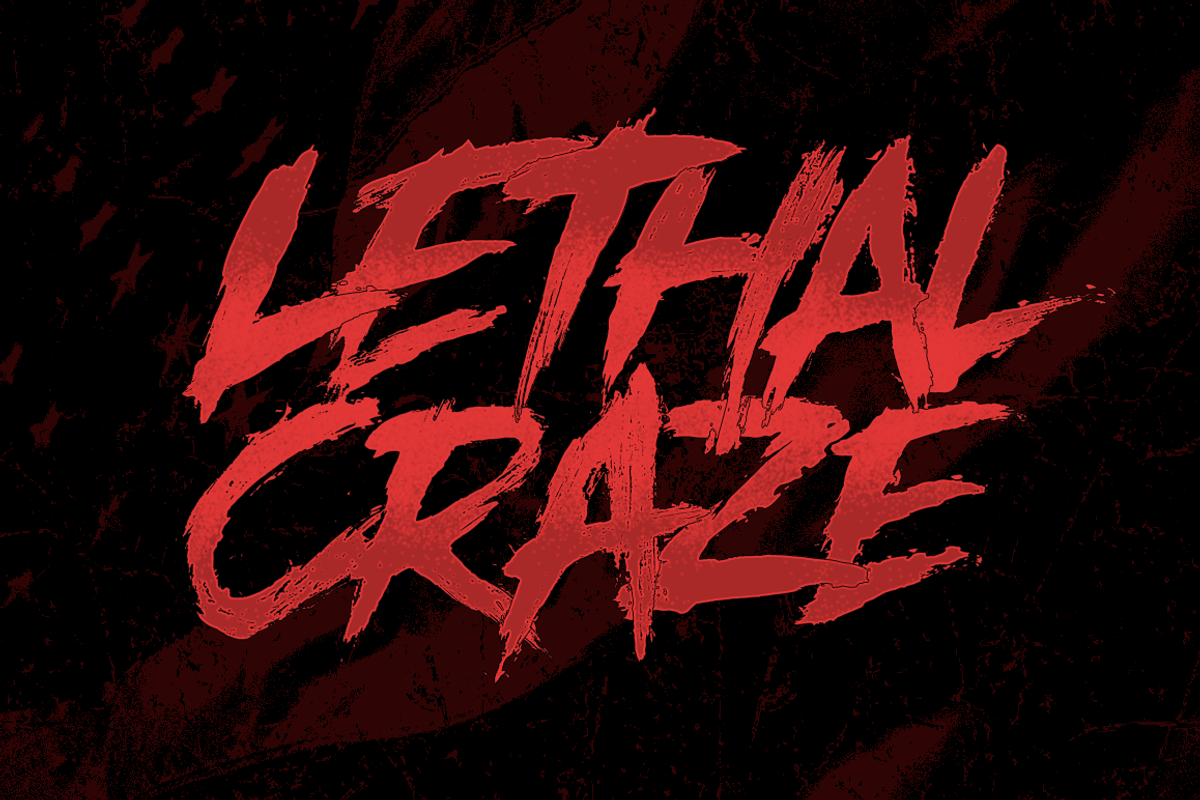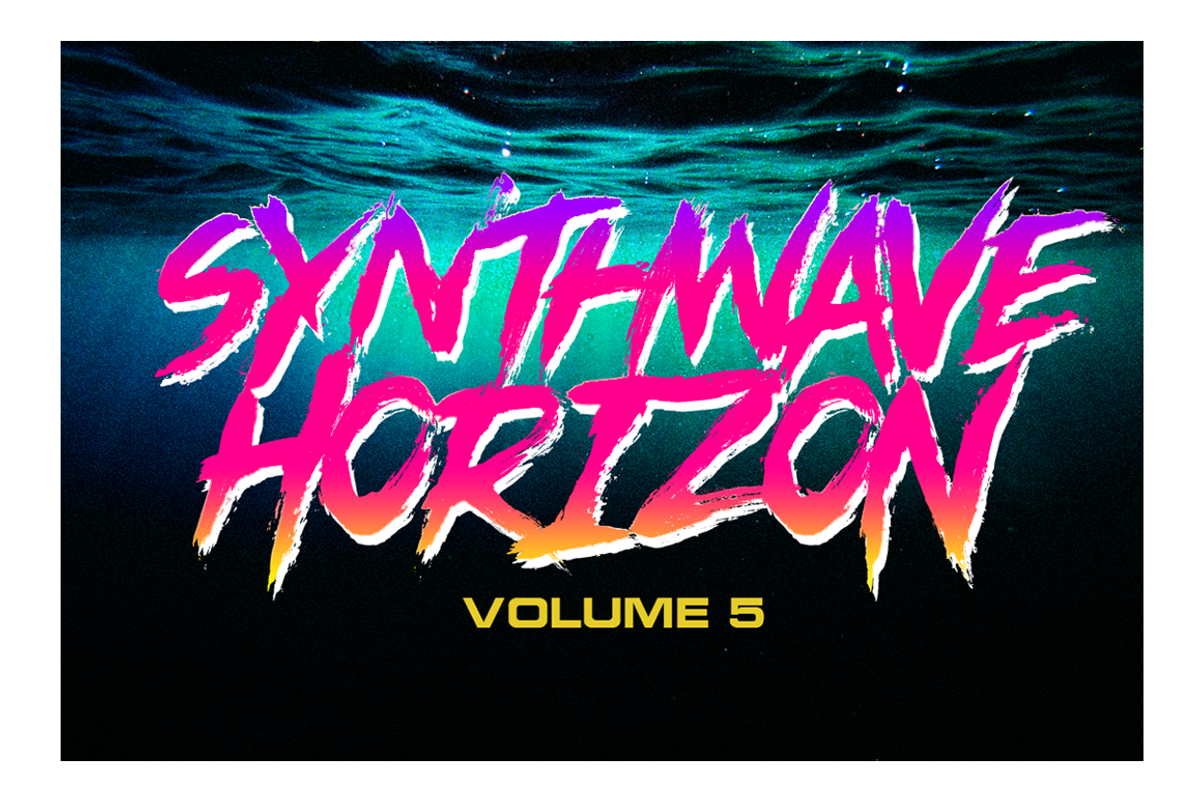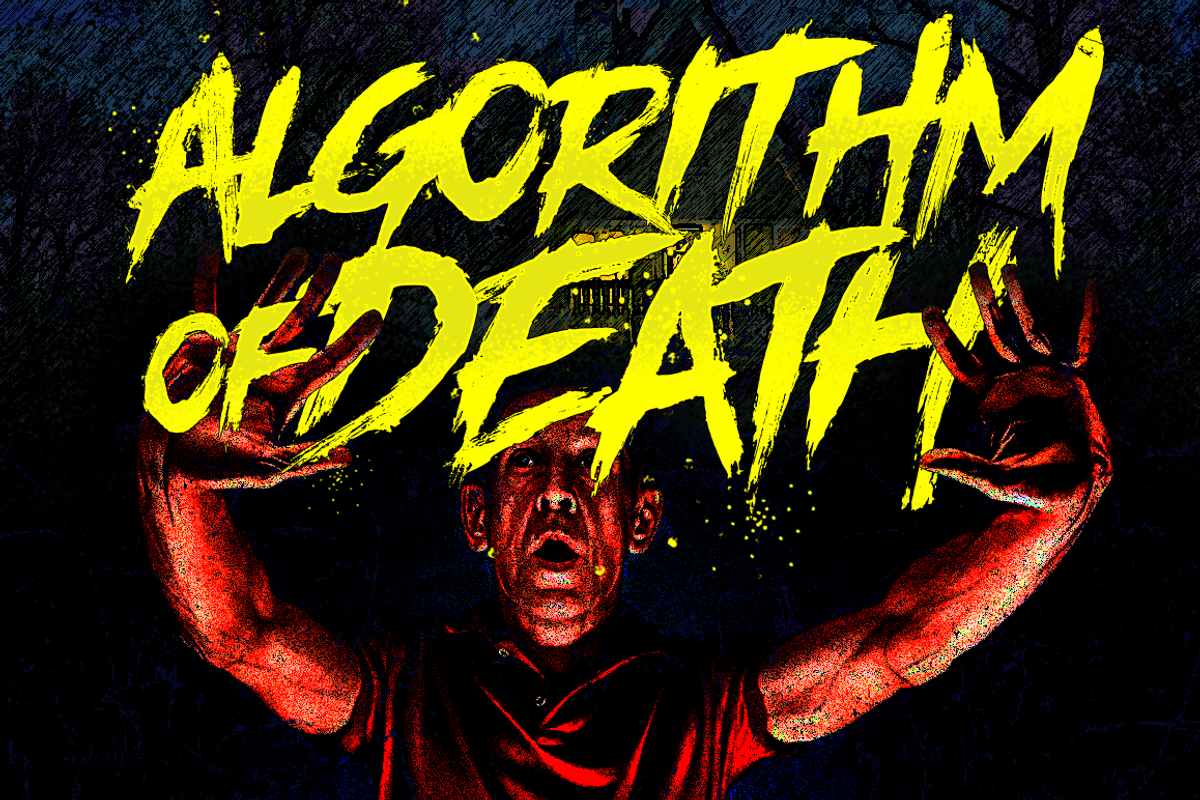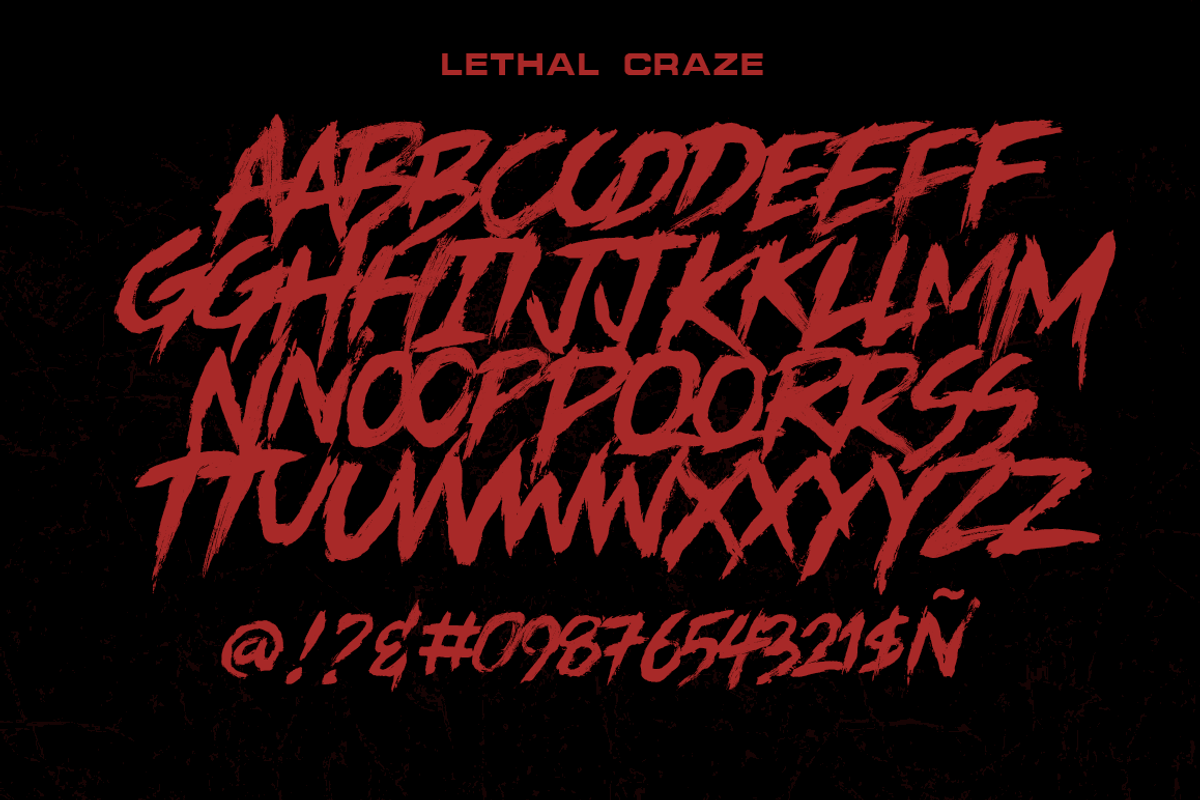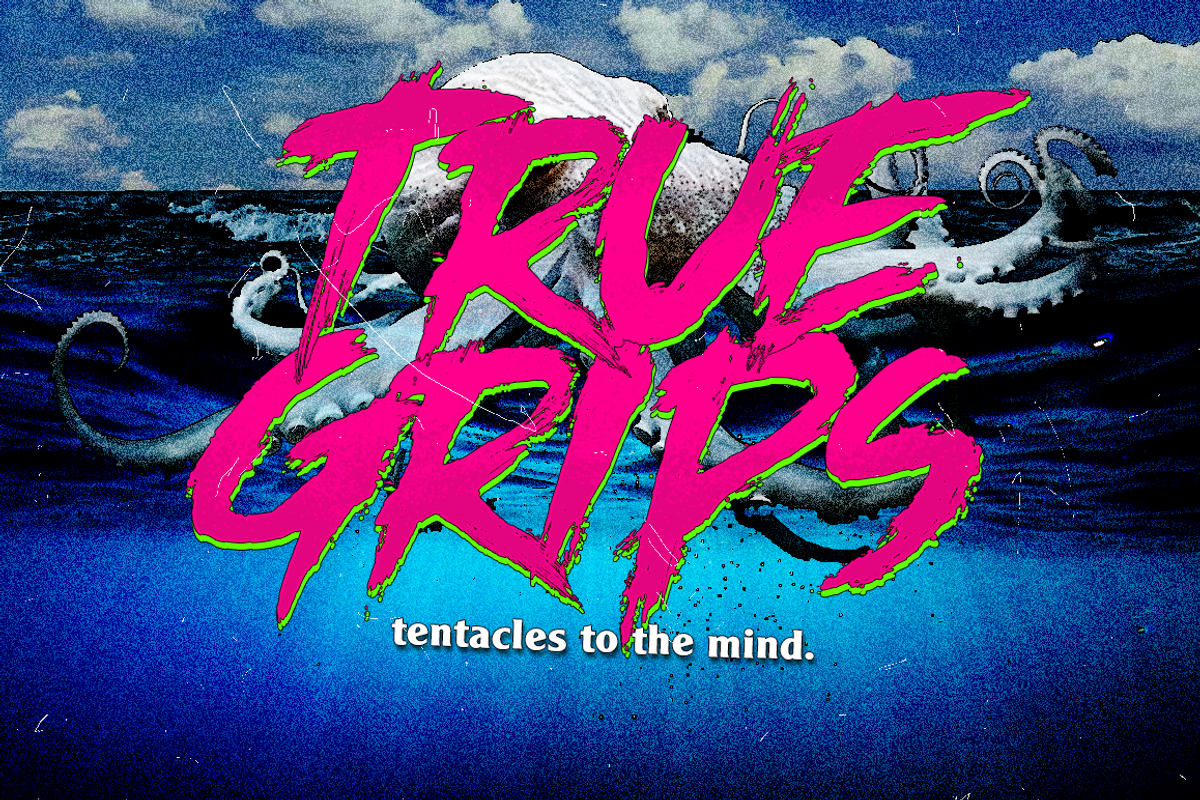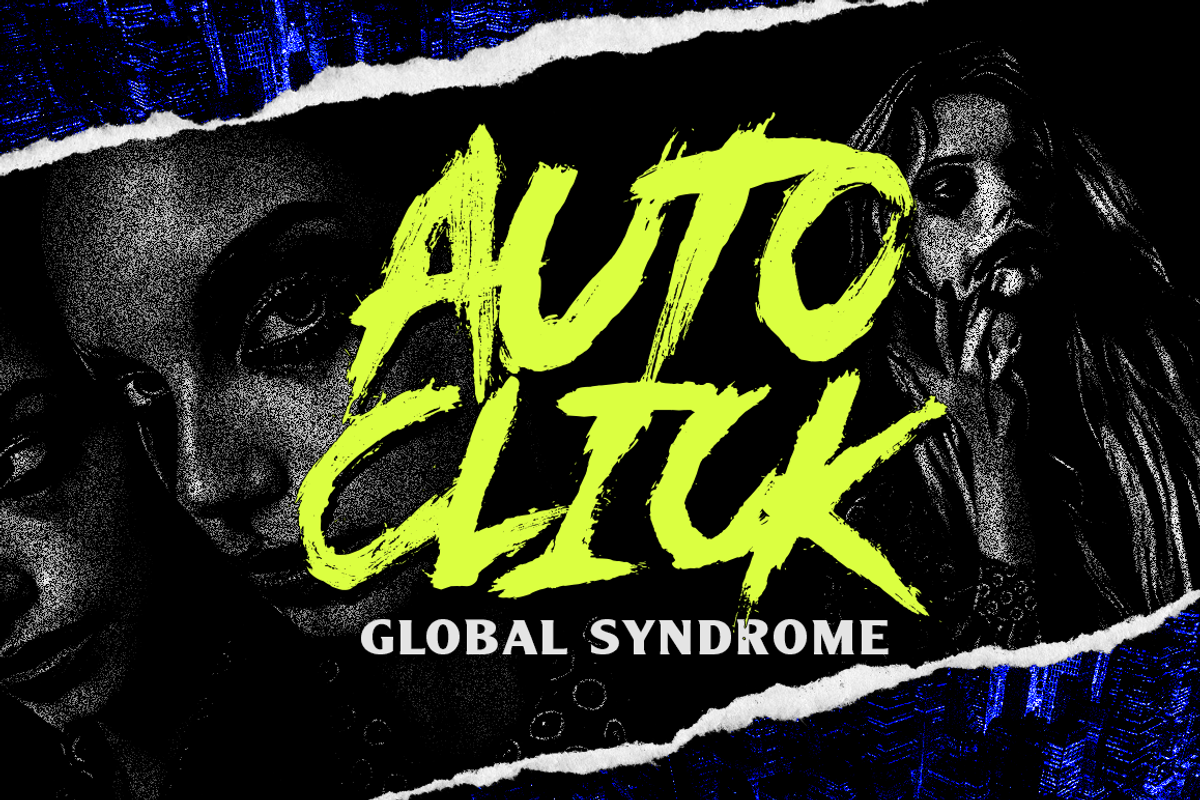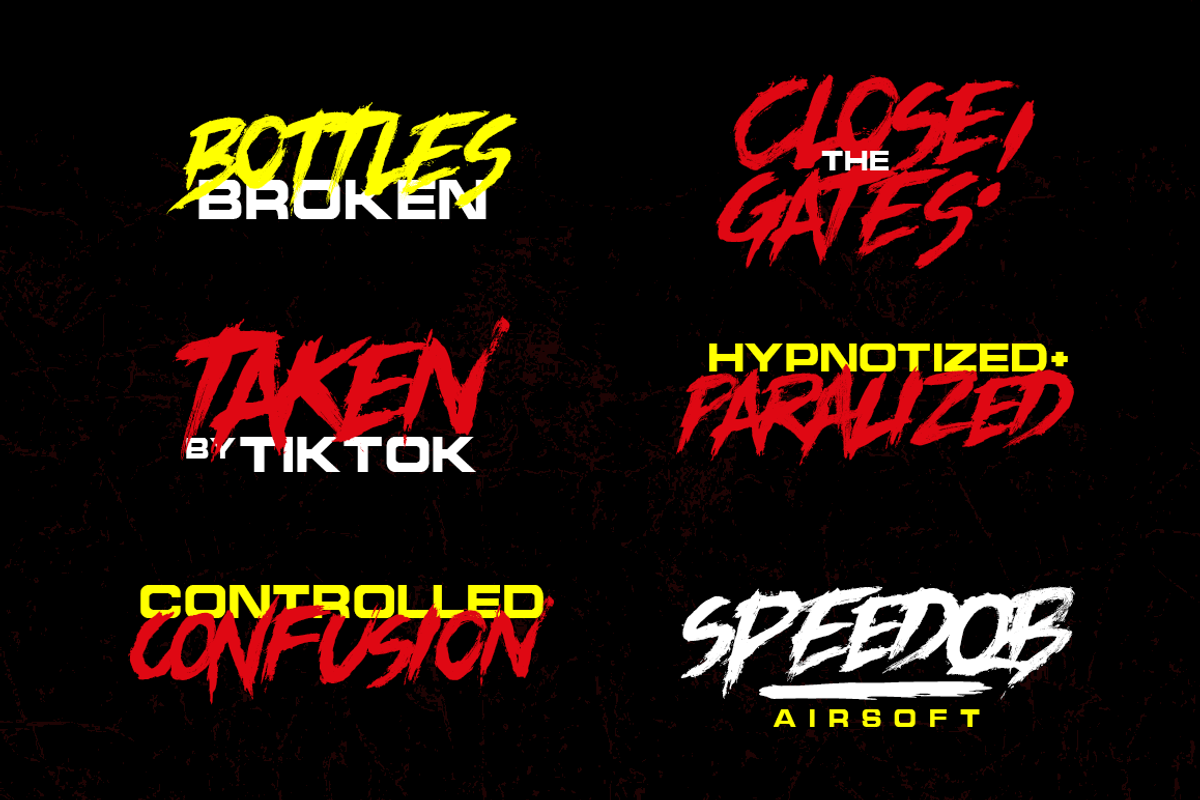
Lethal Craze - Horror Brush
Lethal Craze is a semi-dry brush font that expresses that 70's horror movie posters. It suits well with that pop-art and comics style of artwork. Every glyph is randomly applied with a real fabric ink using a flat brush so it will produce that realistic hand-brushed output. Now keep that design straightforward and intriguing!